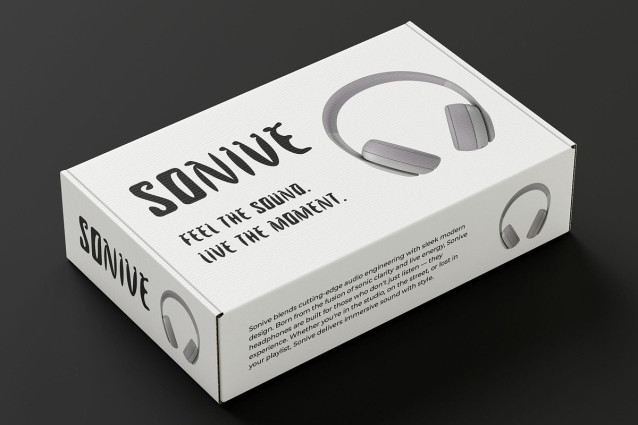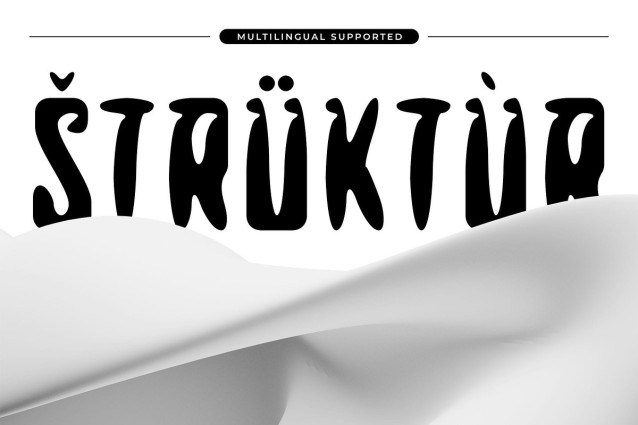
CS Frank Drawn Font
CS Frank Drawn Font is a modern sans-serif display font that blends bold geometric precision with a hand-drawn effect, creating a look that is both powerful and approachable. Its clean and geometric letterforms offer a crisp and contemporary look, while a subtle drawn effect adds a touch of imperfection that brings warmth, character, and human personality into the design.
Designed for Impact Built for visibility, this creative font delivers a strong visual presence that’s perfect for headline text, branding, posters, and editorial design. It grabs attention while maintaining a personal, crafted aesthetic—ideal for modern creatives who want to combine professional impact with artistic charm.
Versatile, Modern, and Boldly Expressive Whether you’re working on brand identity, album art, packaging, or web graphics, this strong font offers a balance between minimalist strength and expressive detail. Its unique drawn quality adds warmth without sacrificing clarity, making it suitable for projects that want to stand out while staying polished.
Perfect for Bold and Creative Design Ideal for modern branding, editorial headlines, striking posters, and any creative project that demands a clean yet expressive voice. This approachable font delivers visual strength with a human touch, ensuring your design remains memorable and bold.